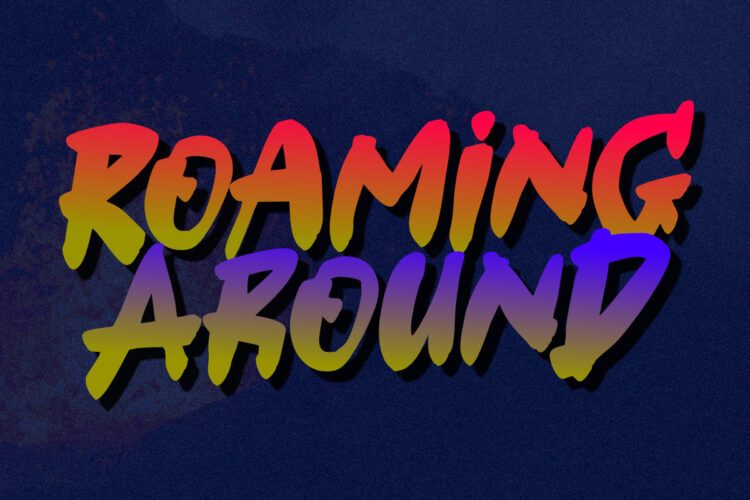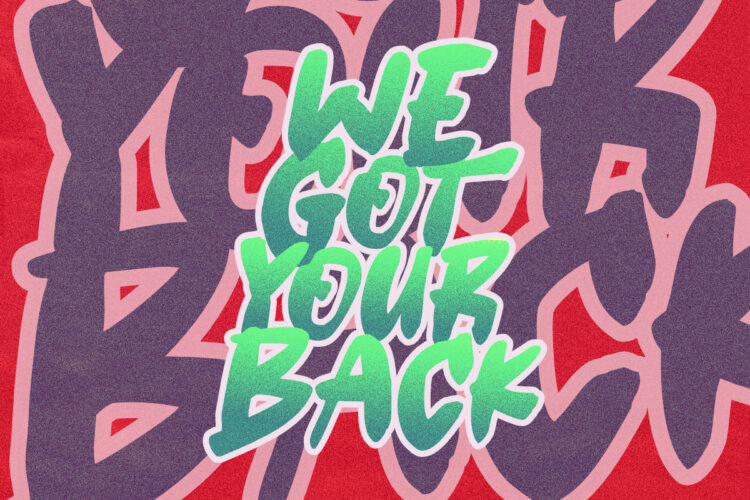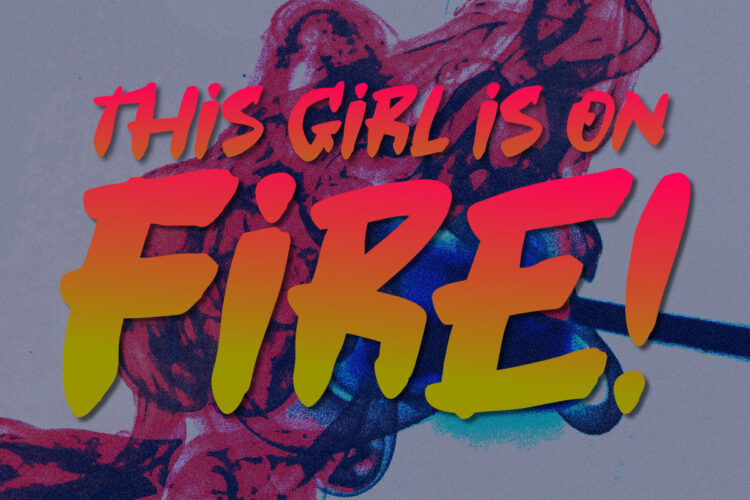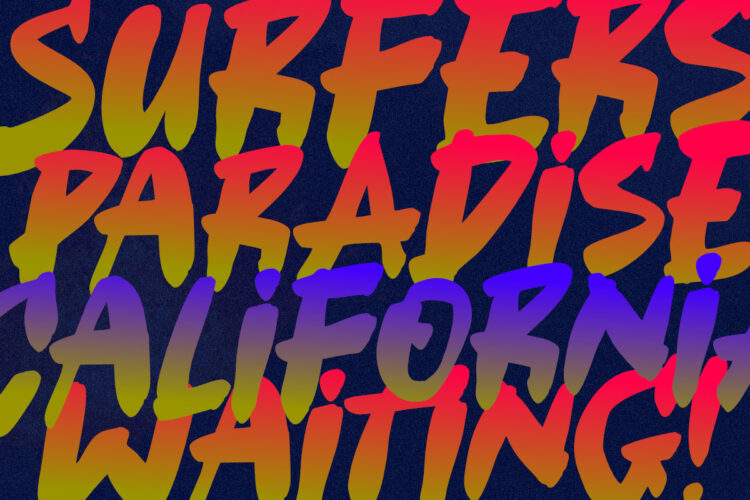
Roaming Around is a typeface that is perfect for any design project. With its graffiti-inspired style, it’s guaranteed to give your designs a hand-painted, stand-out feel. Fight the monotony of clean fonts by giving your designs true character with Roaming Around.
- Basic Latin Uppercase and Lowercase
- Ligatures